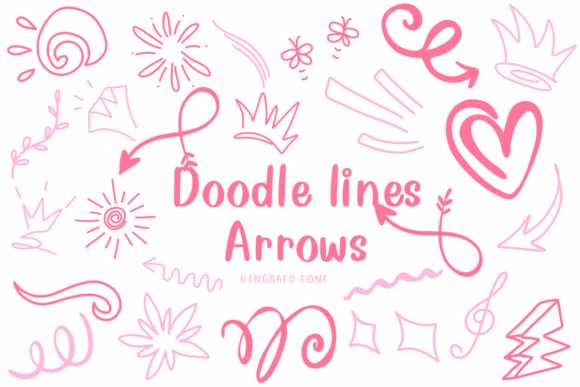
Doodle Lines Arrows Font: Add a Playful and Whimsical Flair to Your Designs
In the world of digital design, fonts play a crucial role in conveying the tone and personality of a project. If you’re looking to add a playful and whimsical touch to your designs, look no further than the Doodle Lines Arrows Font. This delightful dingbats typeface is packed with hand-drawn elements like squiggles, stars, hearts, and quirky arrows, perfect for scrapbooking, kids’ projects, social media posts, or any creative work that needs a light-hearted touch.
What is Doodle Lines Arrows Font?
The Doodle Lines Arrows Font is a unique and creative typeface that features a wide range of hand-drawn elements, including squiggles, stars, hearts, and quirky arrows. Each symbol is carefully crafted to feel spontaneous and fun, making your designs feel unique and full of personality.
This font is a dingbats typeface, which means it’s made up of symbols and glyphs rather than traditional letters and numbers. This makes it perfect for adding a playful touch to your designs, and can be used to create eye-catching headings, graphics, and illustrations.
Key Features of Doodle Lines Arrows Font
- Hand-drawn elements: Each symbol in the Doodle Lines Arrows Font is carefully hand-drawn to give it a unique and spontaneous feel.
- Wide range of glyphs: The font features a wide range of glyphs, including squiggles, stars, hearts, and quirky arrows.
- Perfect for creative projects: The Doodle Lines Arrows Font is perfect for scrapbooking, kids’ projects, social media posts, or any creative work that needs a light-hearted touch.
Uses for Doodle Lines Arrows Font
The Doodle Lines Arrows Font is a versatile typeface that can be used in a wide range of creative projects. Here are a few ideas to get you started:
- Scrapbooking: Add a playful touch to your scrapbook pages with the Doodle Lines Arrows Font.
- Kids’ projects: The font is perfect for kids’ projects, such as making fun and colorful posters, flyers, and brochures.
- Social media posts: Use the Doodle Lines Arrows Font to add a light-hearted touch to your social media posts.
- Graphic design: The font can be used in graphic design projects, such as creating eye-catching headings and graphics.
Tips for Using Doodle Lines Arrows Font
Here are a few tips for using the Doodle Lines Arrows Font in your designs:
- Mix and match: Experiment with mixing and matching different glyphs to create unique and interesting combinations.
- Use in combination with other fonts: The Doodle Lines Arrows Font can be used in combination with other fonts to create a unique and eye-catching design.
- Experiment with colors: The font looks great in a variety of colors, so don’t be afraid to experiment and find the perfect color for your design.
The Doodle Lines Arrows Font is a unique and creative typeface that can add a playful and whimsical touch to your designs. With its wide range of hand-drawn elements, including squiggles, stars, hearts, and quirky arrows, it’s perfect for scrapbooking, kids’ projects, social media posts, or any creative work that needs a light-hearted touch.
So why not give the Doodle Lines Arrows Font a try? With its ease of use and versatility, it’s the perfect addition to any designer’s toolkit.